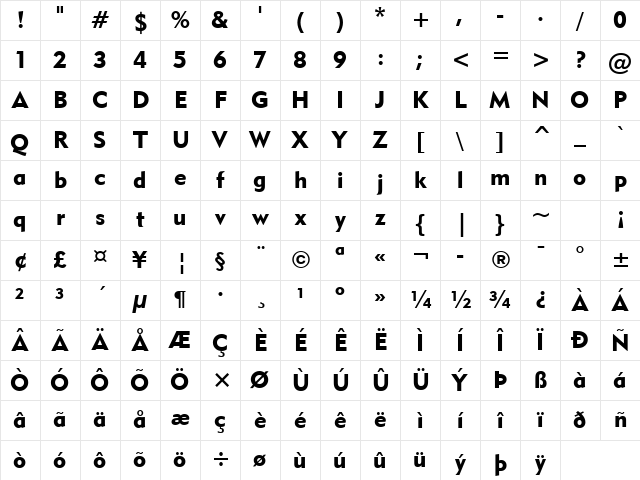
Geometr415 Blk BT Black
Design Context for Geometr415 Blk BT
Geometr415 Blk BT is a composed and adaptable typeface that performs quietly and consistently across a wide range of design contexts.
Pro Tip: Use Geometr415 Blk BT in both headline and body roles to test its range before committing to a single application.